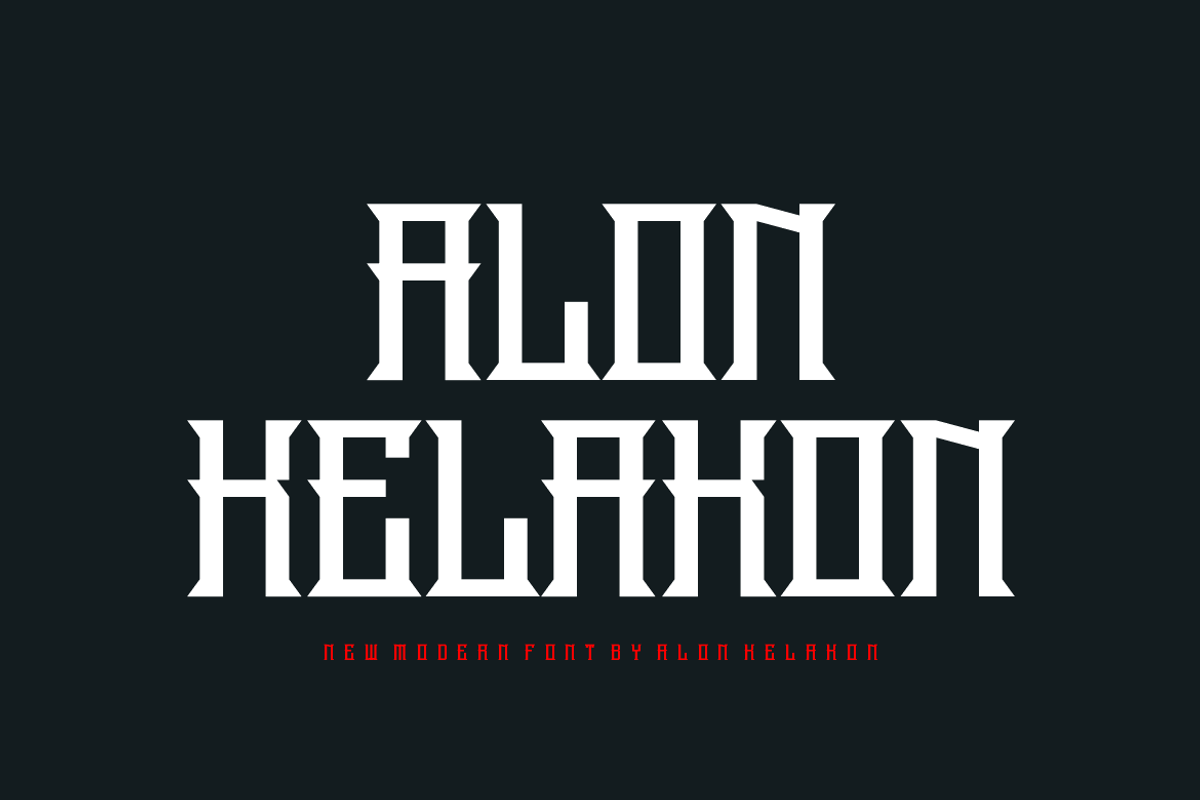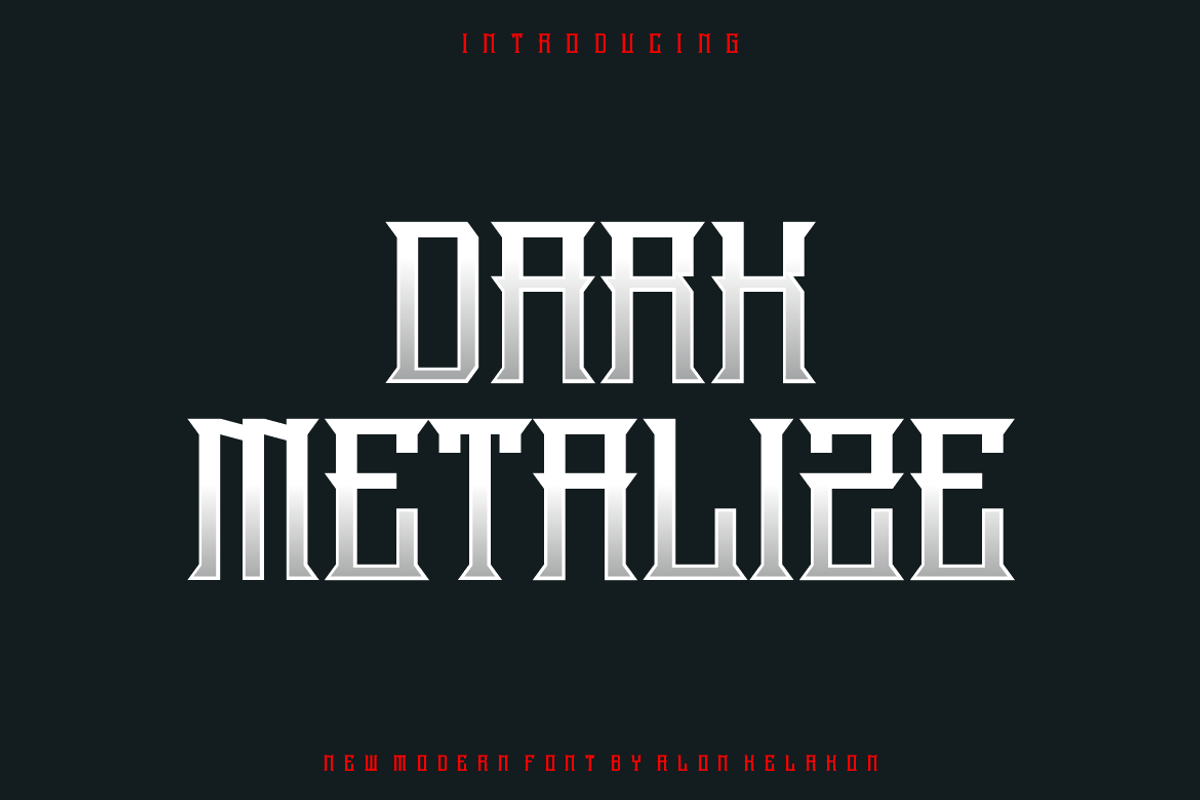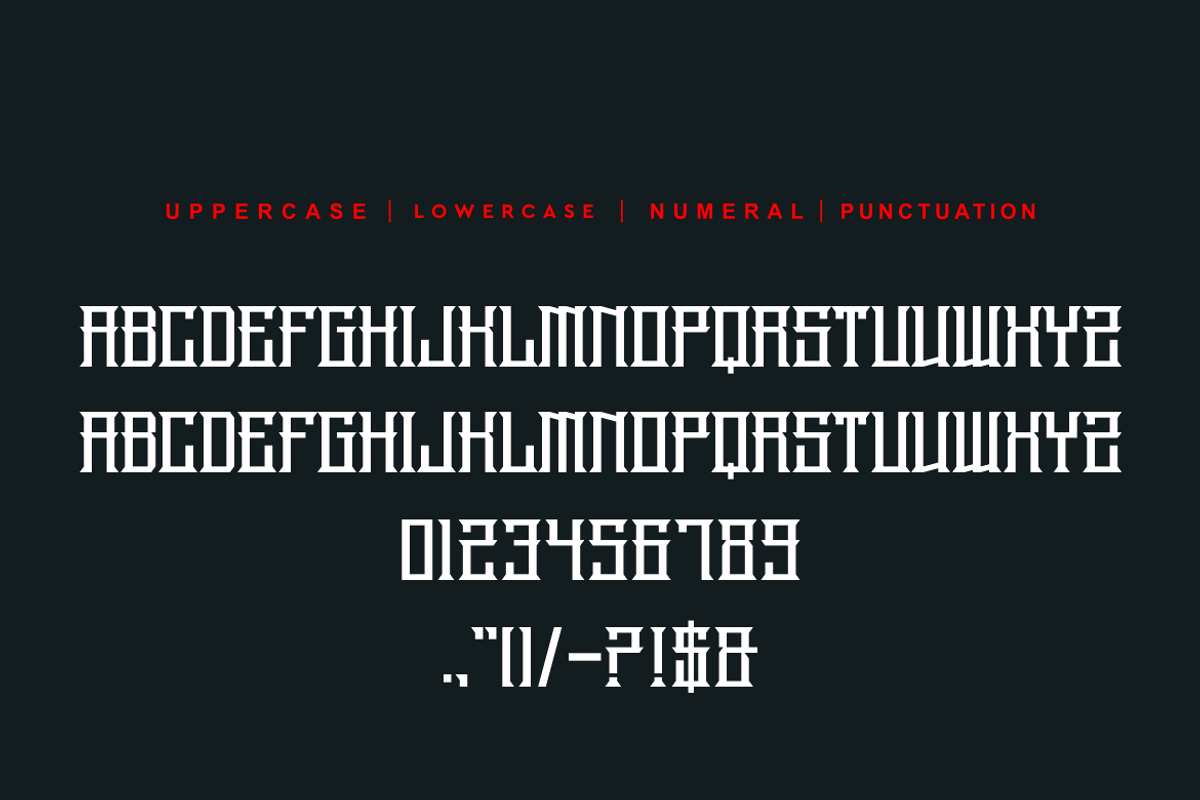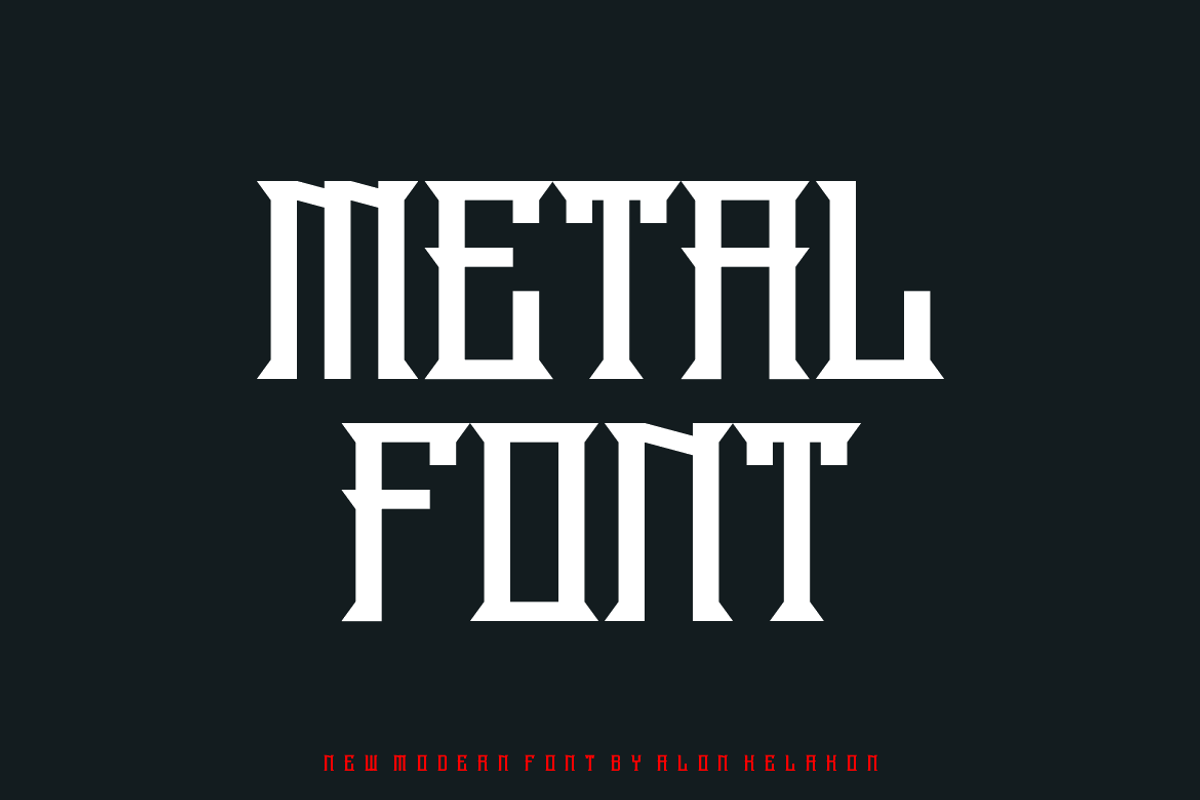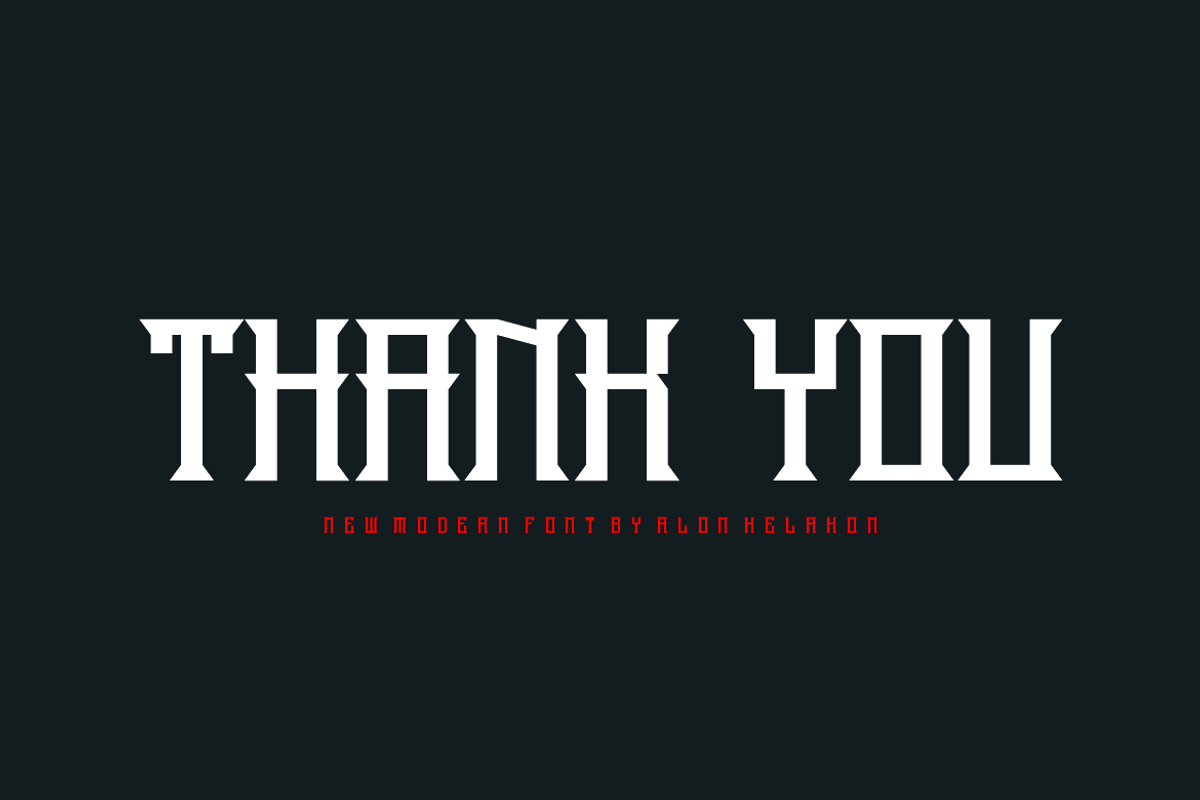
Dark Metalize Font
Dark Metalize Font Font is unique . Ready to use for your design like labeling, clothing, movie sceen, poster, movie title, gigs, album covers, logos, and much more.